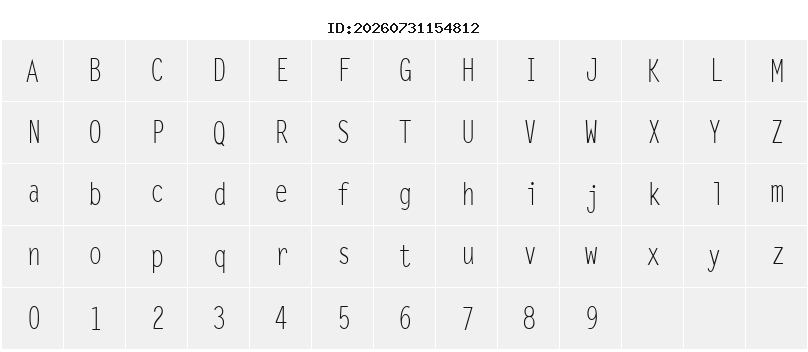
About LetterGothicCond.ttf
LetterGothicCond.ttf is a modern, elegant sans-serif font designed for ultimate readability and visual harmony. Perfect for branding, headlines, web design, and print materials.